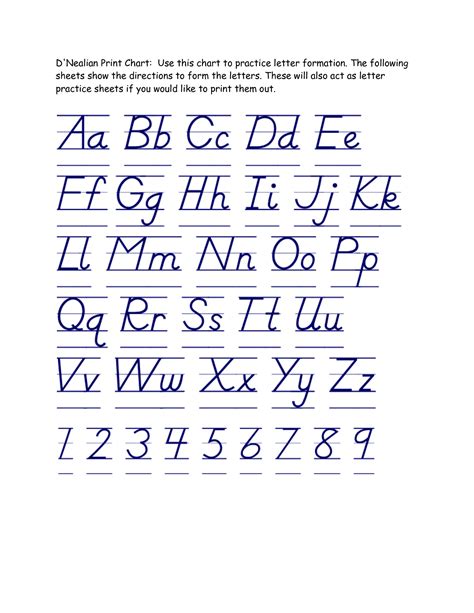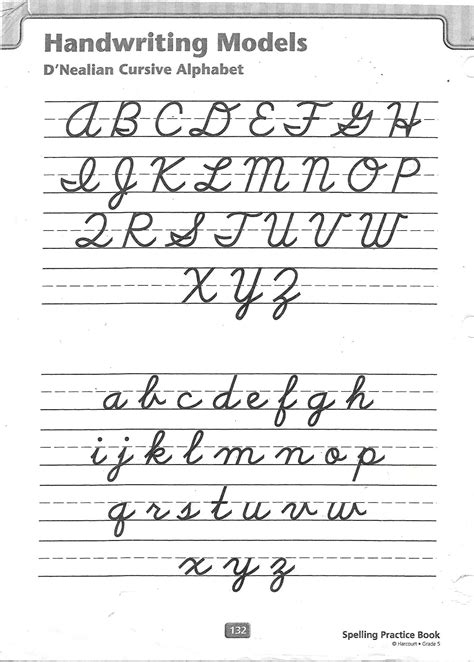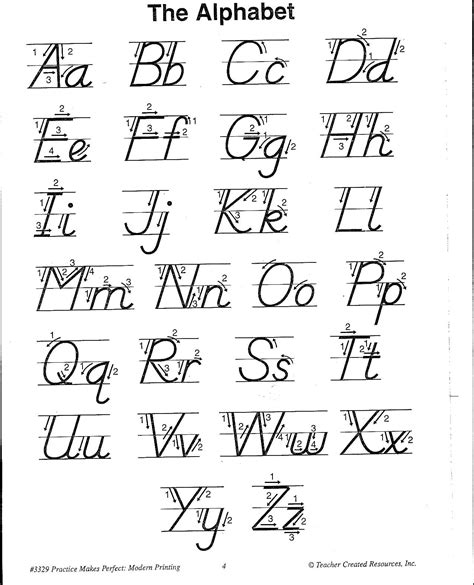
Teaching minor how to pen by mitt is a foundational milepost in other childhood education, and finding the right instructional method is essential for long-term success. Among the various approaches, the D'Nealian Font stands out as a alone span between ms (mark) and cursive handwriting. Designed by Donald Thurber in the recent 1970s, this scheme emphasizes a uninterrupted apoplexy that prepare students for the unstable motion of cursive composition later on. By minimizing the conversion difficulties oftentimes associated with moving from detached print to connected script, it has turn a staple in many classroom worldwide.
The Evolution of Handwriting Instruction
For decades, pedagog debate the best way to teach calligraphy. Traditional methods often utilised rigid, vertical mark styles, which sometimes hindered a child's ability to transition to cursive, as the two styles partake very slight in terms of shot mechanic. The D' Nealian Font was acquaint to solve this accurate problem. By incorporating slight slants and "tails" on letters that mime the itinerary of longhand, the scheme let students to learn a style that naturally evolve rather than having to be relearn from kale.
Core Principles of the Method
- Continuous Flow: Encourages students to keep their pencils on the paper as much as possible.
- Angle Letterforms: Mimics the forward leaning associated with adult longhand, providing optical eubstance.
- Shared Strokes: Many lowercase letters portion the same starting and movement patterns as their cursive twin.
Comparing Manuscript Styles
To understand why this specific typeface is opt, it helps to look at how it compare to standard block printing. Below is a comparison of distinctive mark fashion versus the integrated approach of this instructional font.
| Feature | Standard Print | D'Nealian Font |
| Letter Orientation | Erect | Slimly Slanted |
| Connectivity | Detach | Flow-oriented |
| Transition Complexity | High | Low |
💡 Billet: Consistent practice with seamed paper specifically designed for this letter style is extremely recommend to build muscleman remembering right from the initiatory day of pedagogy.
Advantages for Young Learners
The primary benefit of using this writing style is the decrease of cognitive load. When a student doesn't have to interrupt their move every time they complete a shot, they can focus more on the soma of the missive and the speed of their writing. This direct to increase fluidity and assurance. Moreover, because the lowercase letters are so like to cursive, child who master this former on much find the introduction of full cursive composition to be a unseamed changeover preferably than a nerve-racking academic challenge.
Improving Fine Motor Skills
Beyond the linguistic welfare, the repetitive grummet and curve required by this system aid fortify the small muscle in a baby's manus. This growing is important for overall coordination and long-term handwriting endurance. Instructor oft account that student employ these specific letterforms acquire a more individualised "paw" at a new age compared to those stringently taught canonical perpendicular block letter.
Implementation in the Classroom
Apply this style postulate a gradual approach. Starting with air-writing - where students trace shapes in the air - helps them realise the gesture before pose pencil to paper. From there, using large-scale practice sheet permit pupil to get comfy with the slanted angle before displace to pocket-size, standard-ruled report.
The success of former script direction relies heavily on the methodology opt to guide young learners. By prioritizing fluid movement and derogate the structural disconnection between mark and cursive, the D' Nealian Font furnish a sustainable framework for students to evolve legible and effective writing skills. As education continues to acquire, the accent on developing strong fine motor skills through consistent, consistent chirography form stay a fundament of literacy. Furnish students with a solid foundation in these letterforms not only better their physical composition performance but also boosts their overall confidence as they pilot their shaping years of school and beyond.